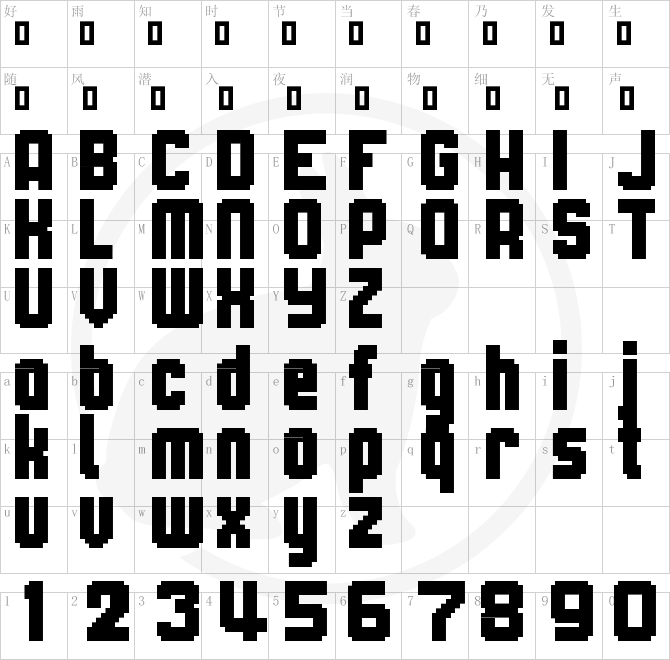
- Font Name:00Heretix
00HeretixBold.ttf is a very beautiful artistic font, 00HeretixBold.ttf is widely used in the design and printing of various books and pictures,00HeretixBold.ttf has a strong visual impact,00HeretixBold.ttf is a commonly used font in newspapers, magazines and books, and is used in posters, e-commerce Poster design, store design, logo design, font design and other fields.00HeretixBold.